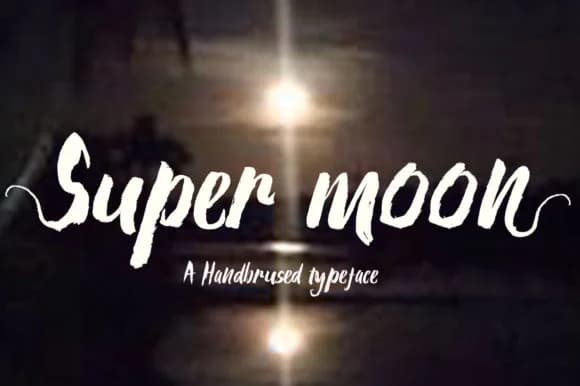
1 / 6About Super Moon Font
Super Moon, designed by Microcreative, features thick, expressive letterforms that blend playful energy with genuine handwritten character. This script typeface moves between bold and bouncy, giving your words a contemporary voice that feels alive on the page without sacrificing legibility. Scale it large for impact or run it smaller for supporting text; the personality reads in either case.
Wedding invitation suites gain real personality when you pair Super Moon with classic card stock. Event signage reads clearly from across a room because of the font's thick, confident strokes. Creating greeting card layouts where the handwritten quality feels intentional, not accidental, becomes effortless. Social media graphics for lifestyle brands benefit most, as the font's contemporary aesthetic avoids the ornate fussiness that dates quickly.
Hand-drawn script fonts can lose their charm through repetition, but Super Moon's careful construction maintains impact no matter how many times a letter appears. The bold weight structure makes it equally effective for headlines and supporting text that ties a design together. Custom product labels, from boutique skincare to artisanal food packaging, showcase this typeface's distinctly modern take on handwritten character. This font suits designers and makers building authentic brands that refuse to feel corporate or generic. Find it on Creative Fabrica ready for whatever project you're starting.
Super Moon Font is a script font that shines as a display or heading face. Pair it with a clean sans-serif or serif font for body text β the contrast creates a clear hierarchy while the two styles stay balanced and easy to read.